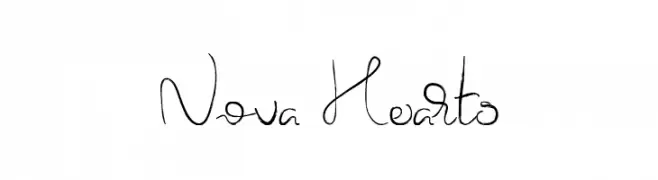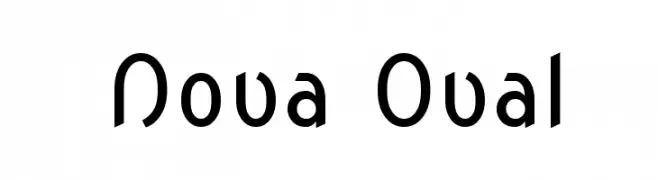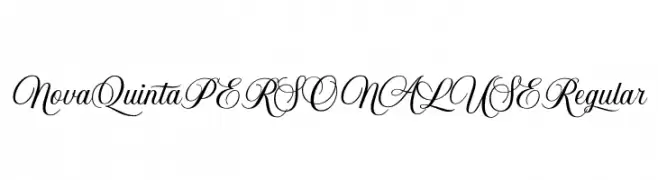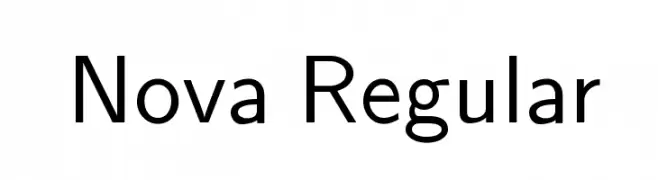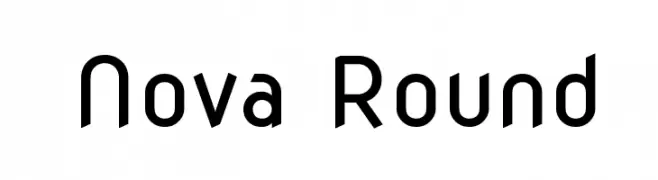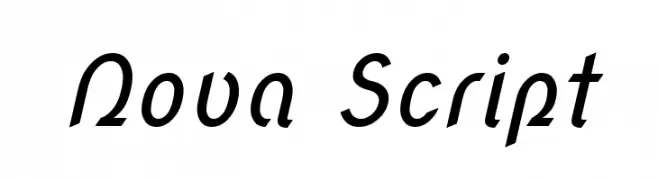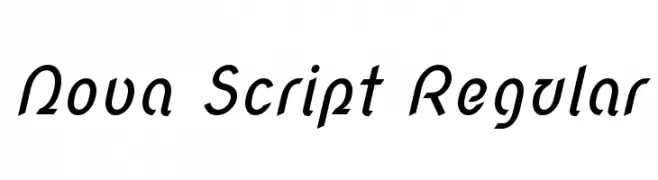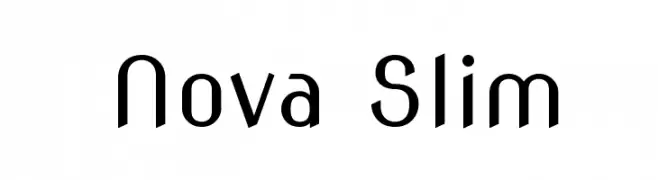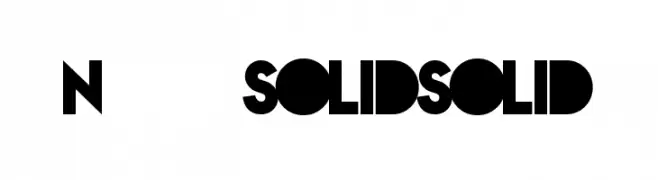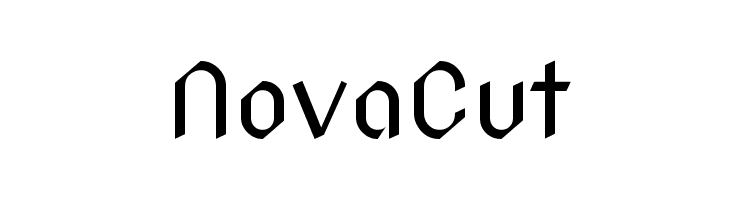
A whimsical script font with flowing, cursive letters and bold numerals.
A modern, geometric font with rounded edges and uniform width.
An elegant script font with flowing, ornate cursive letters.
A modern sans-serif font with rounded edges and geometric shapes.
A dynamic script font with elegant curves and fluid strokes.
A dynamic script font with elegant, flowing curves and a slight slant.
A sleek, modern font with rounded edges and uniform stroke width.
A bold, geometric font with strong, solid letterforms and a modern aesthetic.